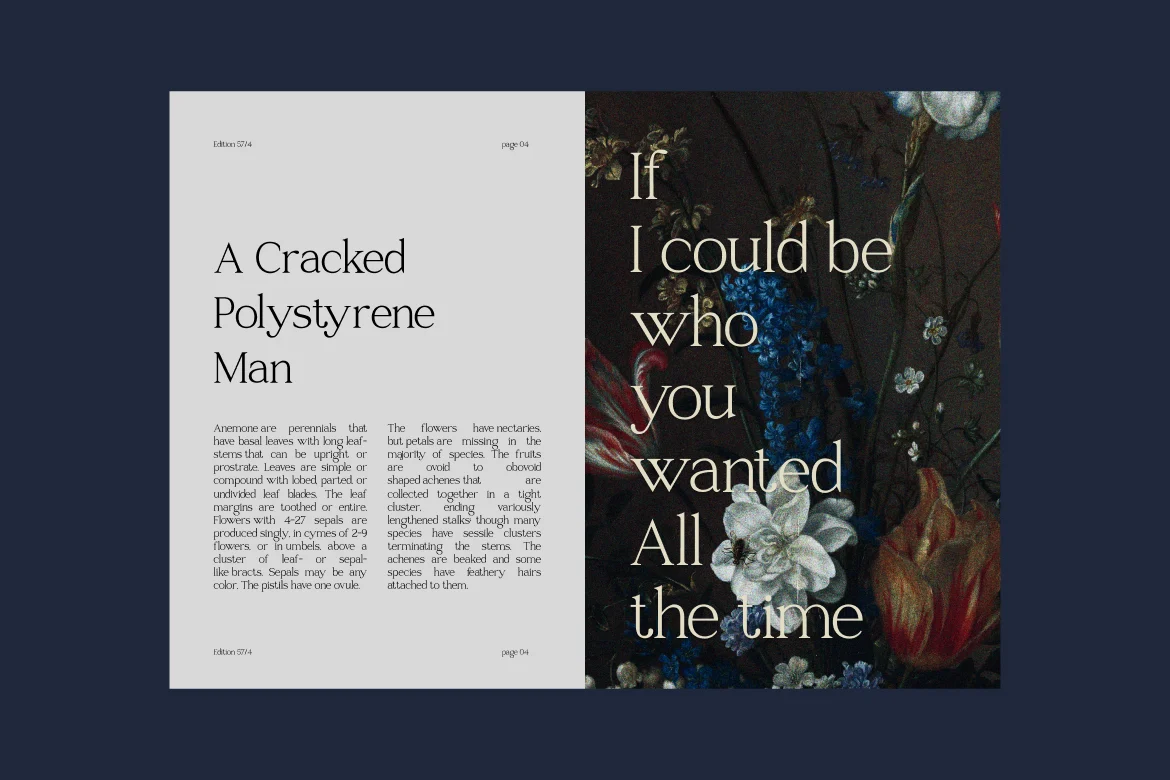
Raveny Display Font
Raveny Serif Display Font showcases a refined serif typeface with graceful curves, delicate contrast, and subtle decorative flourishes inspired by botanical aesthetics. The design features balanced proportions, smooth terminals, and stylish ligature accents that enhance its sophisticated character. Includes uppercase, lowercase, numbers, punctuation, provided in fully scalable formats for professional use. Crafted with a timeless and artistic approach that blends classic elegance with modern minimalism.
Relevance and Use Cases is perfect for branding projects, editorial layouts, luxury packaging, fashion promotions, wedding invitations, and beauty-related visual identities that require a refined and elegant typographic presence, including magazine covers, high-end logos, boutique branding, cosmetic labels, perfume packaging, social media campaigns, portfolio presentations, and creative direction visuals where a timeless, graceful, and sophisticated serif style enhances the overall aesthetic and communicates premium quality.